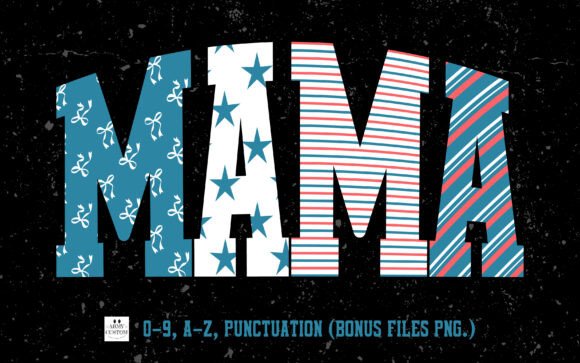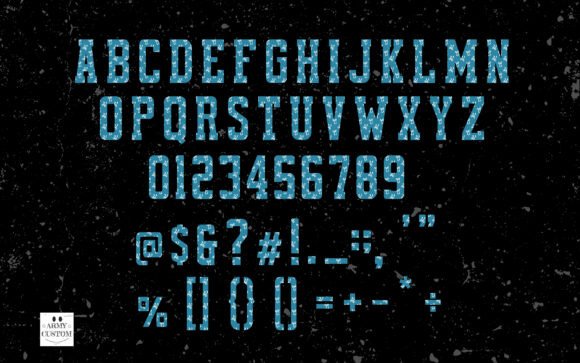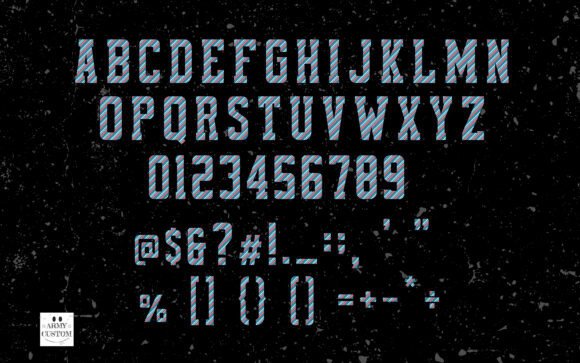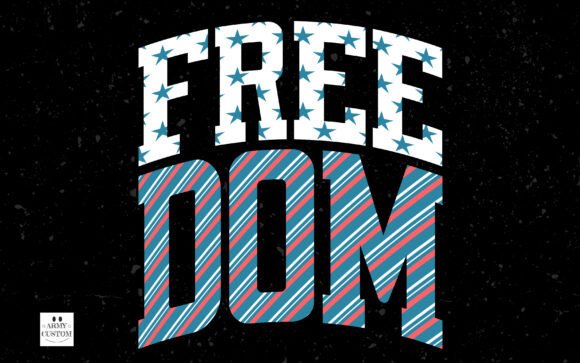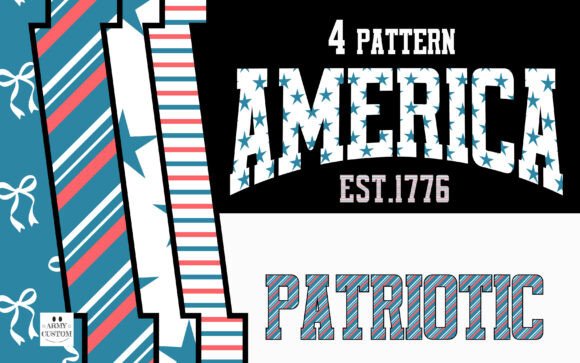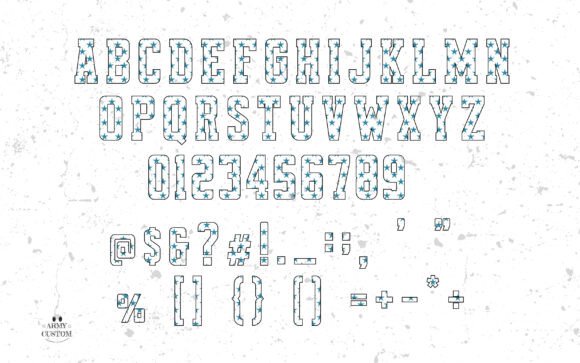
Introduction to Patriotic Blue Font
Immerse yourself in the captivating allure of the Sugar Patriotic Blue college font.
Designed with thoughtfully tailored character and distinct charm, it promises to inject an undeniable edge into any professional branding initiative The Sugar Army college font seamlessly blends uniqueness and versatility, empowering your projects to transcend common design boundaries and truly stand out.